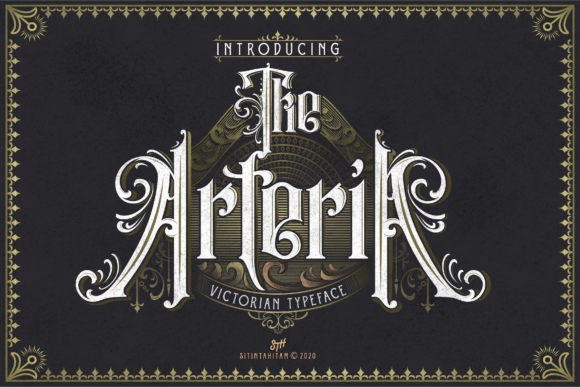
Behold Arteria Font, the vintage styled display font, crafted by the imaginative minds at sitintahitam, awaits your design ventures. A font as bold and powerful as its name, Arteria Font is the secret weapon for making your designs stand out. Its unique vintage charm will give your creations a timeless feel, while its powerful presence will capture attention and leave a lasting impression.
With Arteria Font, you'll have the perfect font for title posters that demand attention. Its bold strokes and captivating presence will make your words jump off the page, captivating your audience and conveying your message with maximum impact. Whether you're creating posters for marketing campaigns, event announcements, or personal projects, Arteria Font will elevate your designs to new heights.
But Arteria Font is not limited to just posters. Unleash its potential in logos, branding, packaging, and other creative endeavors where a bold and vintage-inspired touch is desired. Arteria Font will transform your designs into masterpieces, leaving a mark on your audience that they won't soon forget.